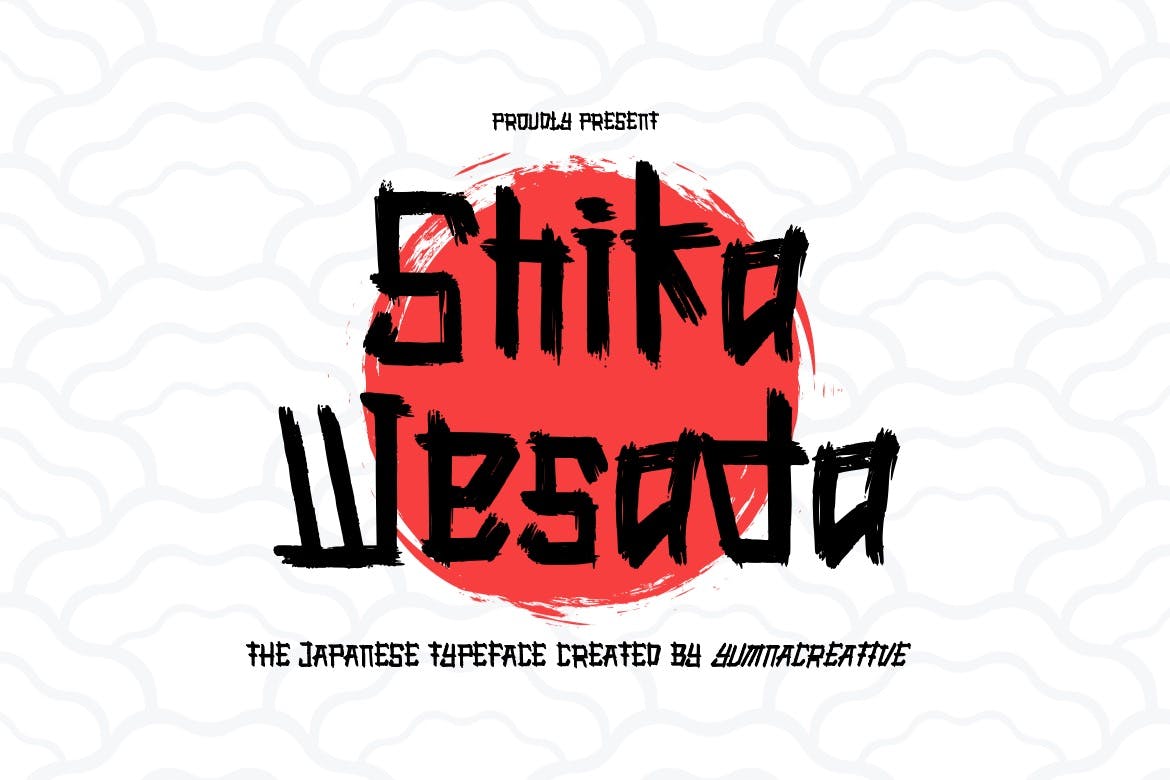
Shika Wesada - Japanese Brush Font
The Shika Wesada - Japanese Brush Font is perfect for martial arts branding, authentic sushi restaurant menus, zen meditation artwork, traditional tea ceremony invitations, anime title designs, Japanese cultural exhibitions, samurai-themed projects, and spiritual calligraphy compositions.
What makes Shika Wesada - Japanese Brush Font so exciting is its profound connection to the ancient art of Japanese brush calligraphy that captures the spiritual essence and meditative beauty of traditional shodo practice. This extraordinary typeface embodies the fluid grace and mindful precision of master calligraphers, featuring organic brush strokes with natural ink flow variations and dynamic energy that reflects centuries of artistic refinement. Each character demonstrates the characteristic thick-to-thin stroke transitions and organic imperfections that define authentic brush lettering, creating an immediate connection to Japanese cultural heritage and artistic wisdom. The font's expressive nature brings deep emotional resonance and cultural authenticity to designs, making it perfect for projects that need to convey tranquility, wisdom, and the profound beauty of Eastern artistic traditions.
The Shika Wesada - Japanese Brush Font family includes comprehensive variations that honor different aspects of Japanese calligraphic traditions while meeting modern design requirements. The collection typically features multiple brush styles from delicate flowing strokes to bold expressive marks, each capturing distinct calligraphic moods and spiritual energies. Many versions include alternative characters with varied brush textures, decorative elements inspired by traditional Japanese nature motifs, contextual ligatures that enhance the natural flow, and extensive character sets supporting both Latin and Japanese writing systems for authentic cross-cultural design applications.
The font's remarkable versatility excels across all design mediums, from modern digital applications to traditional print materials. Its organic brush characteristics maintain visual impact and spiritual resonance at various sizes while preserving the authentic Japanese aesthetic that makes traditional calligraphy so captivating and meaningful to global audiences.
Creative professionals worldwide trust this authentic brush font for projects requiring genuine Japanese cultural elements and spiritual sophistication. Whether developing brand identities for authentic Asian establishments, creating promotional materials for cultural events, or designing wellness and meditation content, this font delivers the perfect synthesis of traditional Japanese wisdom and contemporary design functionality.